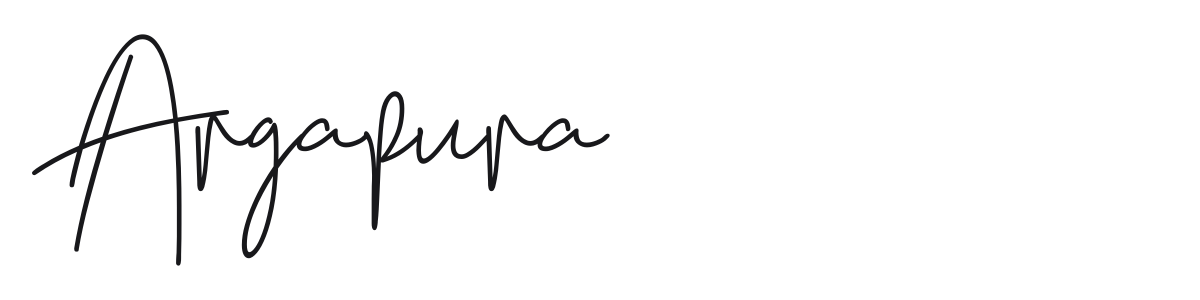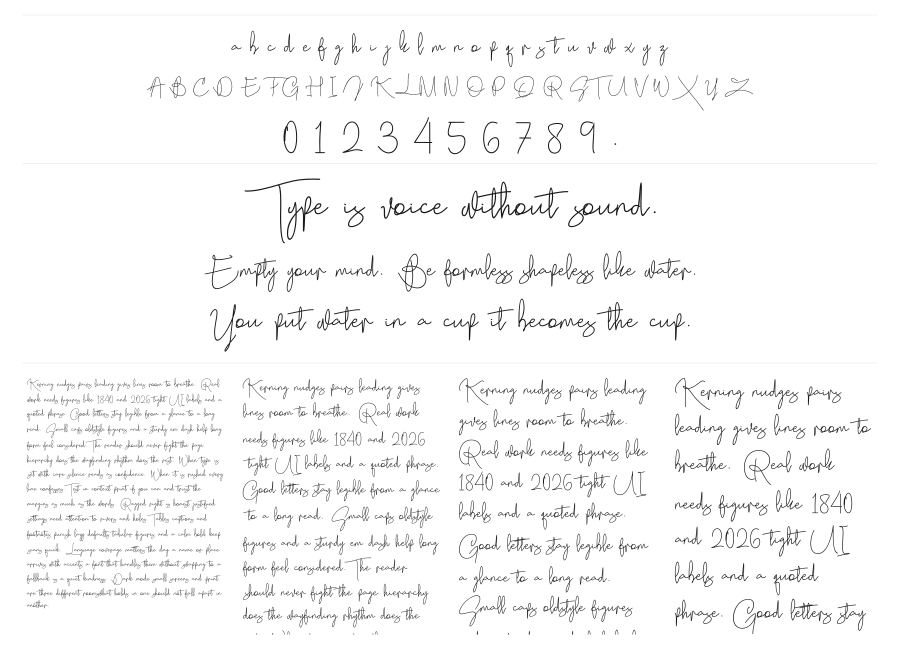
Argapura
Argapura is a flowing casual script with thin, airy strokes and gracefully looping connected characters. The relaxed baseline bounce and long elegant flourishes give it a natural handwritten warmth without feeling unpolished. It works best at larger sizes for logos, wedding stationery, and lifestyle branding.